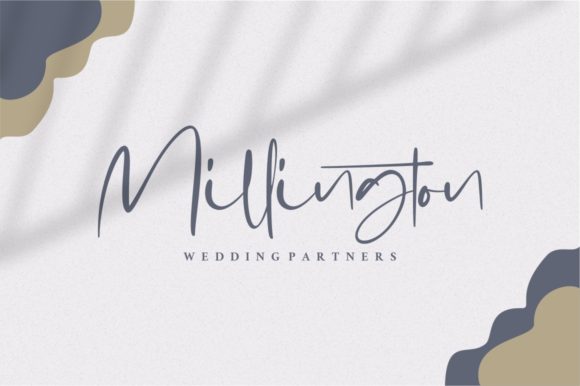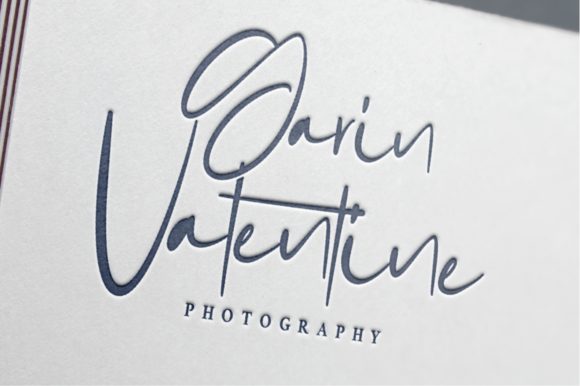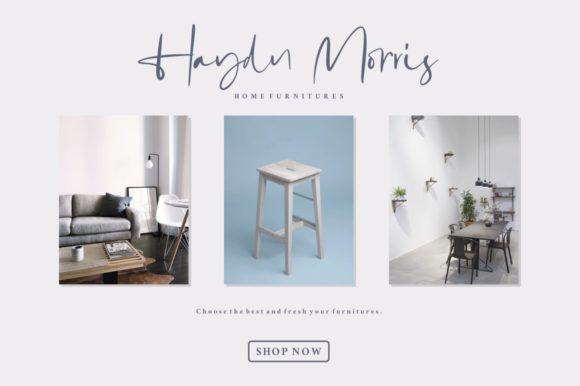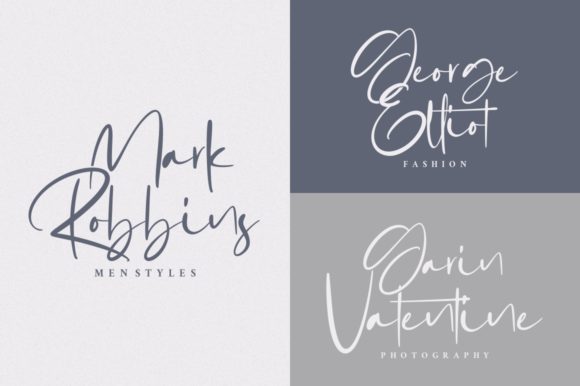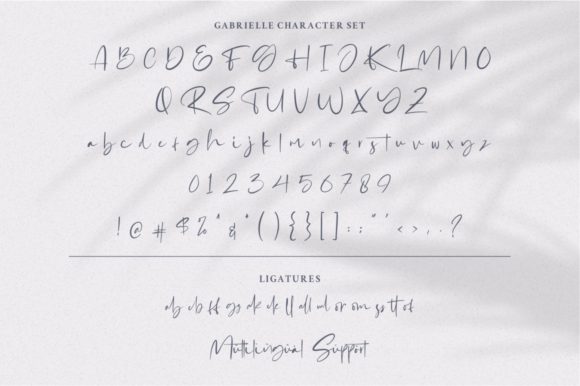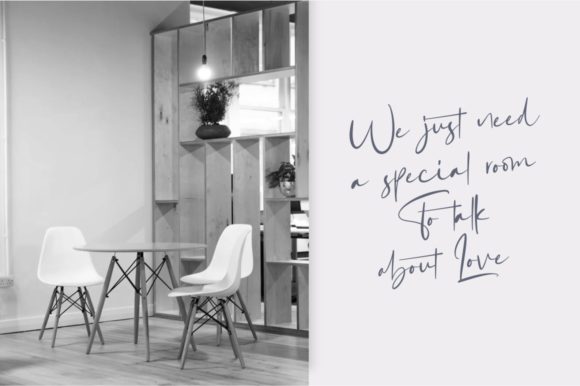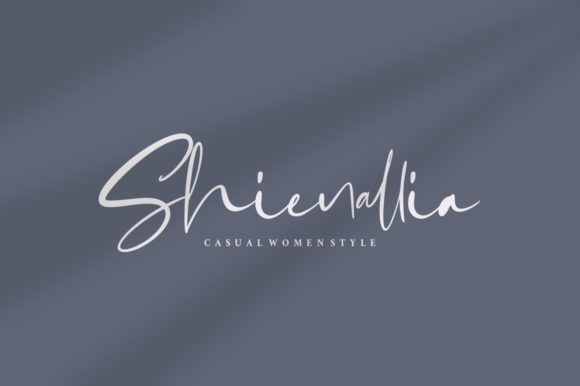
Gabrialle Font
About Gabrialle Font
Gabrialle is an incredibly beautiful script with a unique style. Get inspired by its authentic and contemporary vibe!